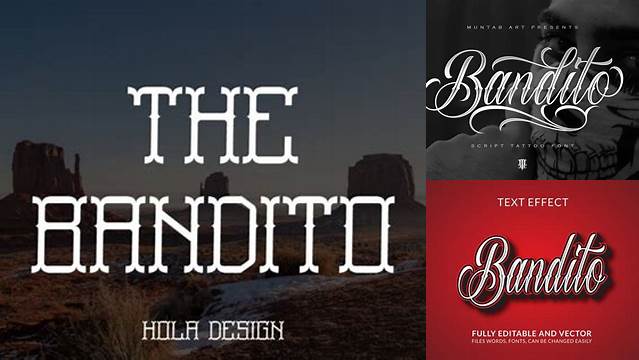
Free Bandito Font Generator: Create Custom Typography
Hey guys! Are you looking to spice up your designs with a unique and edgy font? Well, you're in luck! This article is all about the Bandito Font Generator Free, a fantastic tool that lets you create custom typography without spending a dime. We'll dive into everything you need to know, from what the Bandito font is all about to how you can use a generator to create amazing text effects. Get ready to unleash your creativity and transform your projects with this killer font!
What is the Bandito Font and Why is it Awesome?
So, what exactly is the Bandito font? Think of it as a bold, attention-grabbing display font with a distinct rough and rugged aesthetic. It often features a slightly distressed or textured look, making it perfect for designs that need a touch of grit and personality. The font's style is often associated with themes like the wild west, vintage signage, and anything that evokes a sense of adventure or rebelliousness. Bandito fonts are all about making a statement, and they do it with a confident and unapologetic flair.
This font style is exceptionally popular due to its versatility. Whether you're designing a poster, a logo, a website header, or even social media graphics, the Bandito font can instantly elevate your visuals. The unique characteristics of this font help your text stand out from the crowd, ensuring that your message is seen and remembered. Compared to the regular clean fonts, the unique look of Bandito Fonts gives a unique sense of confidence, boldness, and ruggedness that is not easily replicated by other font types. Think of it like giving your designs a cool, vintage vibe. Imagine your brand or project has that extra edge, an interesting character, or the story you wish to tell. It's a great way to showcase uniqueness in every type of project.
Bandito fonts are also easy to read. Its bold and clear letters are crafted to maximize readability. This is why it is widely used in a variety of different projects. It's perfect for headings, titles, and anywhere you need to make a strong visual impact. The aesthetic is not just limited to text, it's also great for branding. The boldness and rugged look are useful for projecting a strong image.
Free Bandito Font Generator: Your Gateway to Custom Typography
Alright, let's talk about how you can actually use this amazing font. That's where the Bandito Font Generator Free comes in. These online tools are incredibly user-friendly and require no design experience to get started. Typically, all you need to do is type in your desired text, and the generator will instantly display it in the Bandito font. You can then customize it by using the available options to change font styles, colors, sizes, and other effects.
Generators are incredibly useful. No longer will you have to rely on a graphic designer or pay money for a font style. With the free bandito font generator, you have the power to design the font in a style that you want. If you have a clear vision of what the font should look like, but lack the design expertise to create one, then this is an excellent tool. Most font generators are also very easy to use and provide real-time results, so you'll see your design come to life in seconds. This allows you to experiment with different styles and find the perfect match for your project. The user experience is excellent. With just a few clicks, you can create custom typography that is perfect for anything from social media graphics to website headers.
With the free bandito font generator, you can easily design the font based on your needs. You don't need to have the skills, you only need to imagine what the font style should look like, and the generator can help you bring that vision into reality. Using the generator, you can also produce high-quality images in a very short time. Whether you are a professional designer or someone who is just starting out, you can easily explore and create something unique.
Exploring Different Styles of Bandito Fonts
The Bandito font family offers a variety of styles that can be used for different projects. From the original, to the more daring fonts, this font family has got you covered. While the core aesthetic remains consistent, different variations exist that add unique character to your designs. The core characteristics include bold, ruggedness, and attention-grabbing details. The following includes some popular Bandito Font styles:
- Classic Bandito: This is the original version, with its bold, distressed look that instantly grabs attention.
- Bandito Condensed: A more compact version of the font, perfect for fitting text into tight spaces without sacrificing impact.
- Bandito Rounded: Features rounded edges, softening the overall appearance while still retaining the font's strong personality.
- Bandito Shadow: Incorporates a shadow effect, adding depth and dimension to your text, making it pop off the page.
- Bandito Outline: Displays the font in an outline style, suitable for a clean, modern look.
These are just a few examples, with so many options, you're sure to find the perfect style that matches your vision. It will help enhance and give you the freedom to be unique. Each font style brings its own unique characteristics, the user can then pick the style that suits the needs of the project. You can experiment with the different styles to bring out the uniqueness and charm of your project.